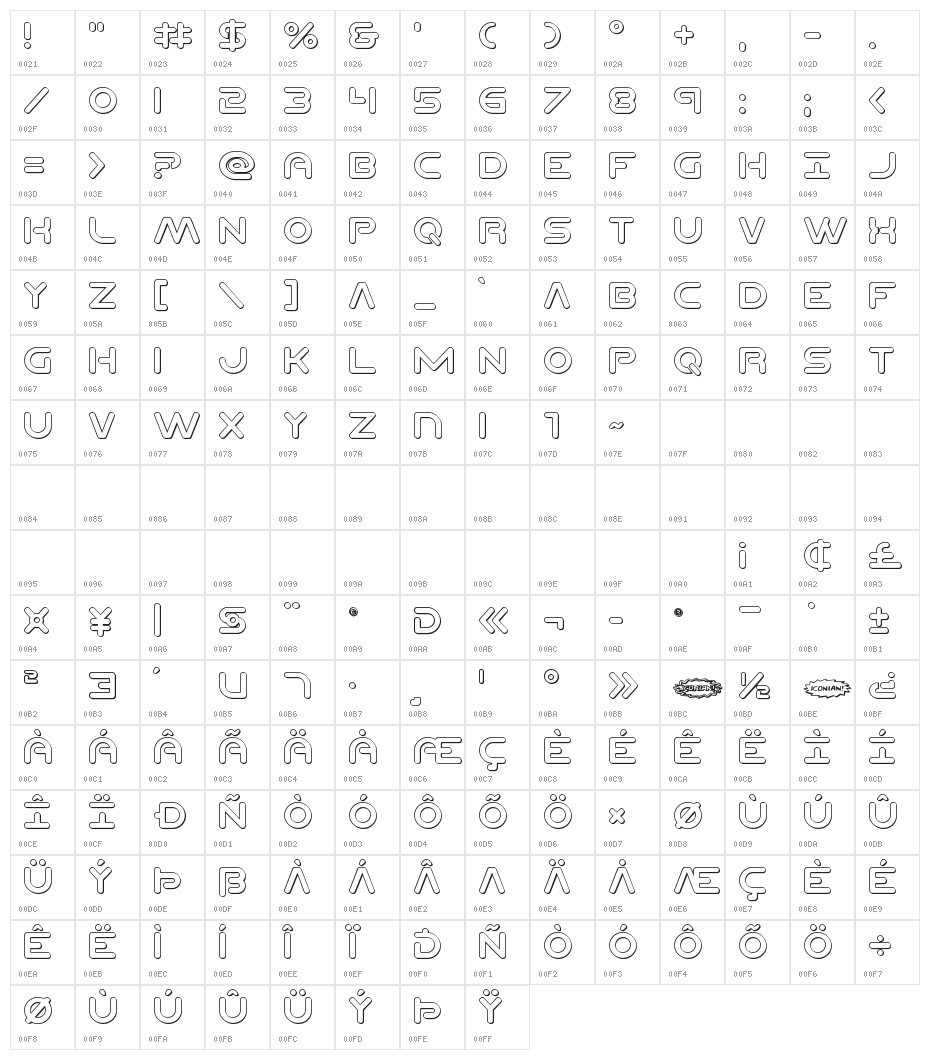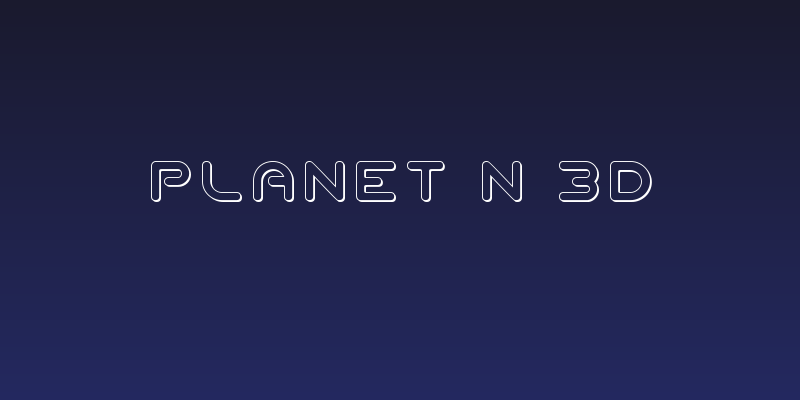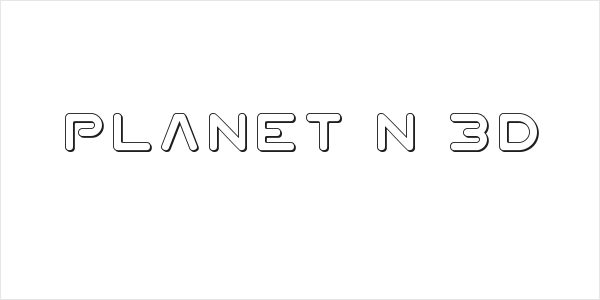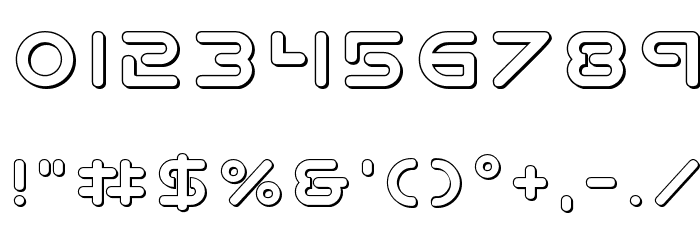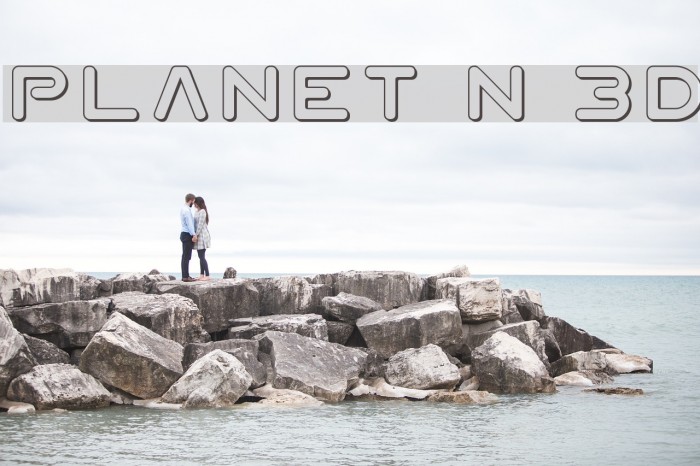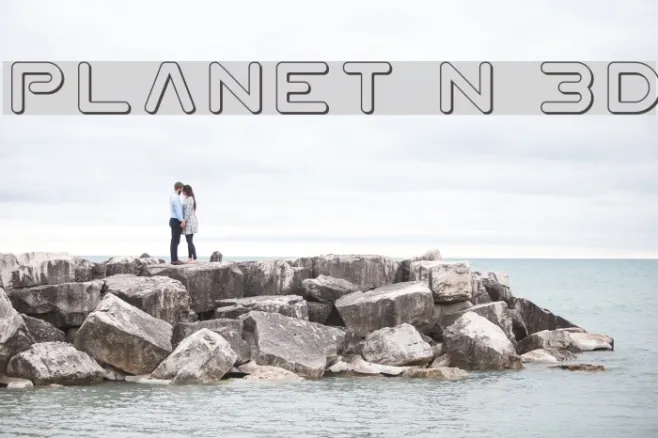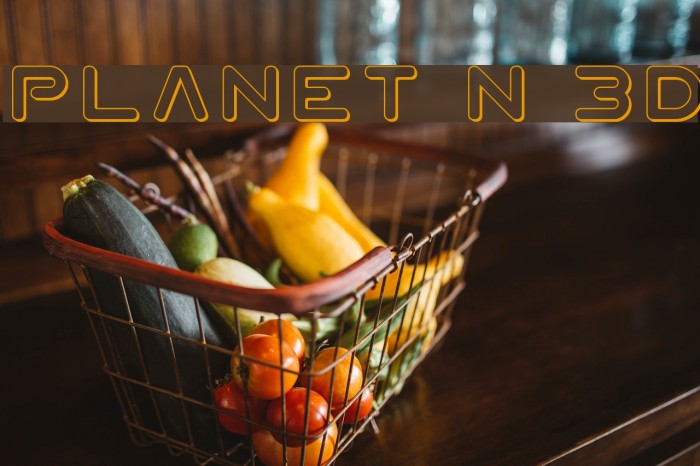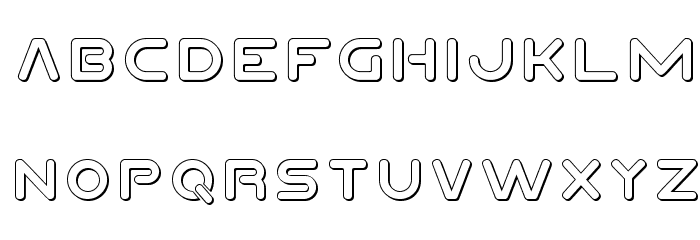
Planet N 3D Font
Planet N 3D Description
This font features a futuristic and geometric design with a three-dimensional effect. Each character is outlined, giving it a hollow appearance that enhances its modern aesthetic. The letters are uniform in height and width, creating a balanced and cohesive look. The rounded edges and consistent stroke width contribute to its sleek and contemporary feel. The numbers and special characters maintain the same stylistic elements, ensuring a harmonious overall appearance. This font is ideal for projects that require a modern and innovative touch, such as technology branding, sci-fi themes, or digital interfaces.
| Proposed Projects | Ideal for technology branding, sci-fi themes, digital interfaces, and modern advertising. |